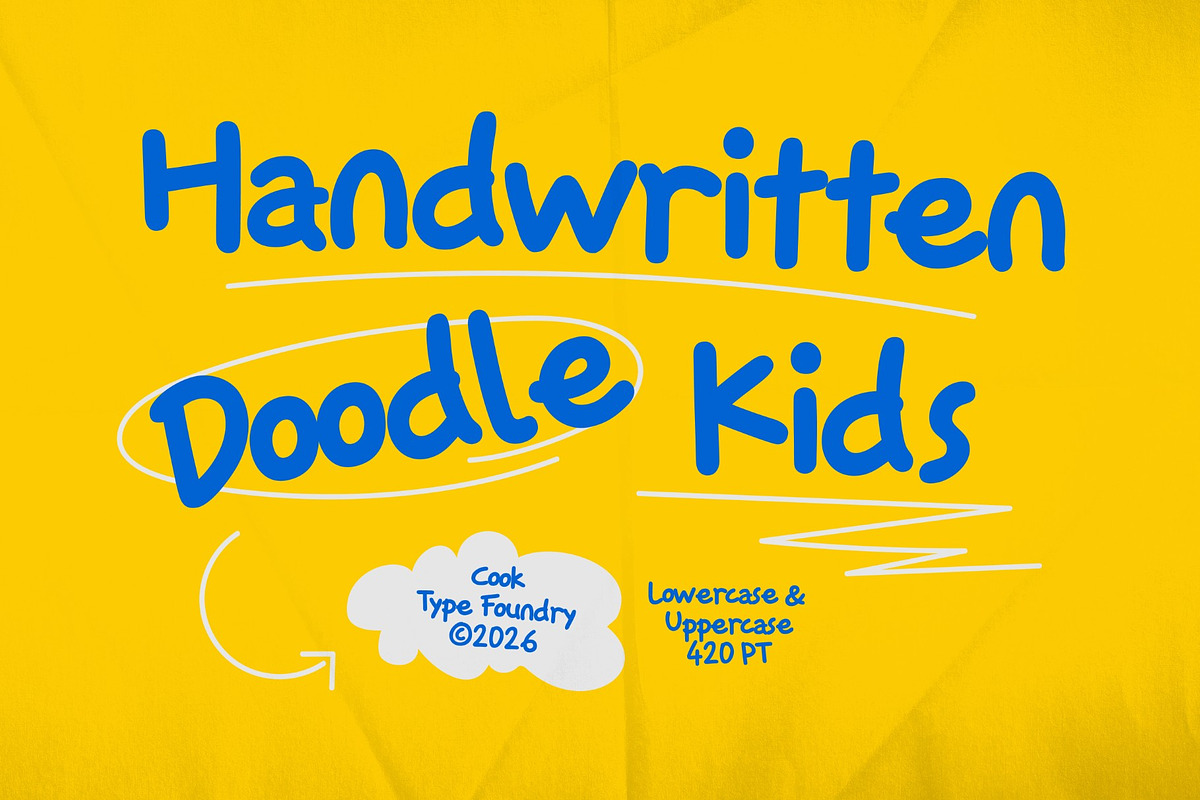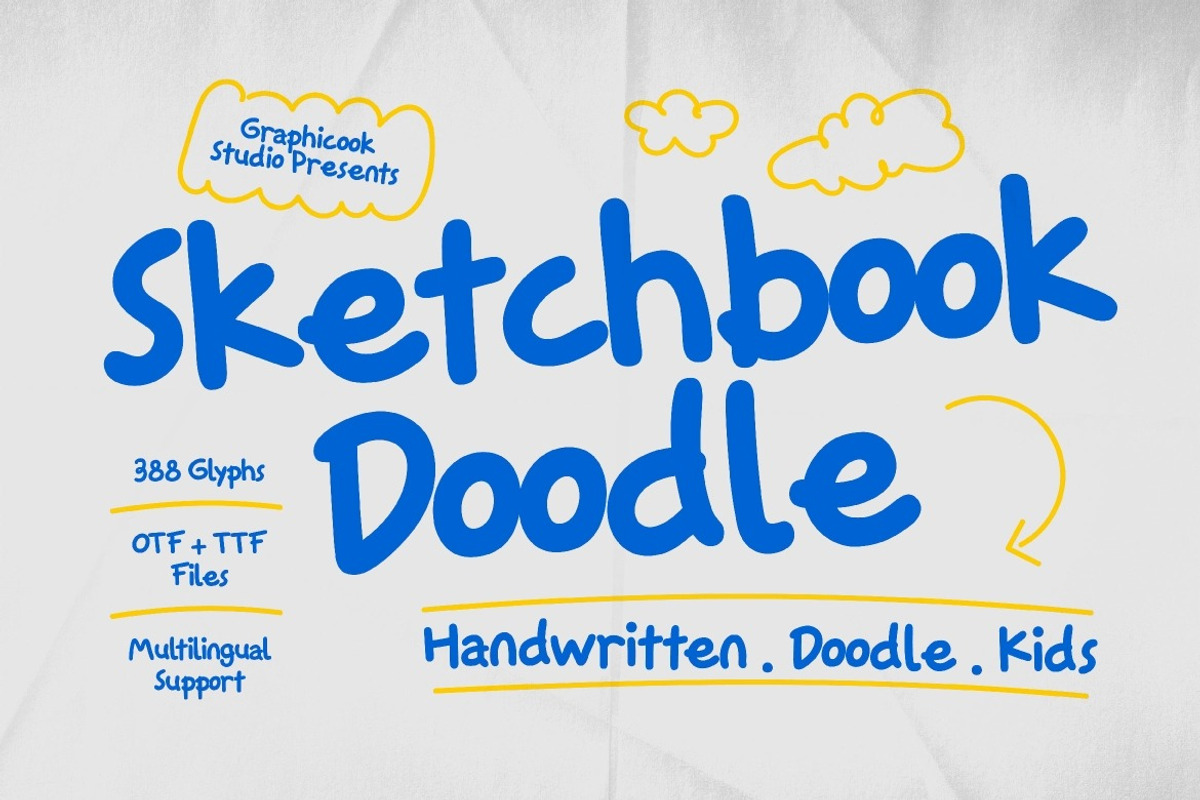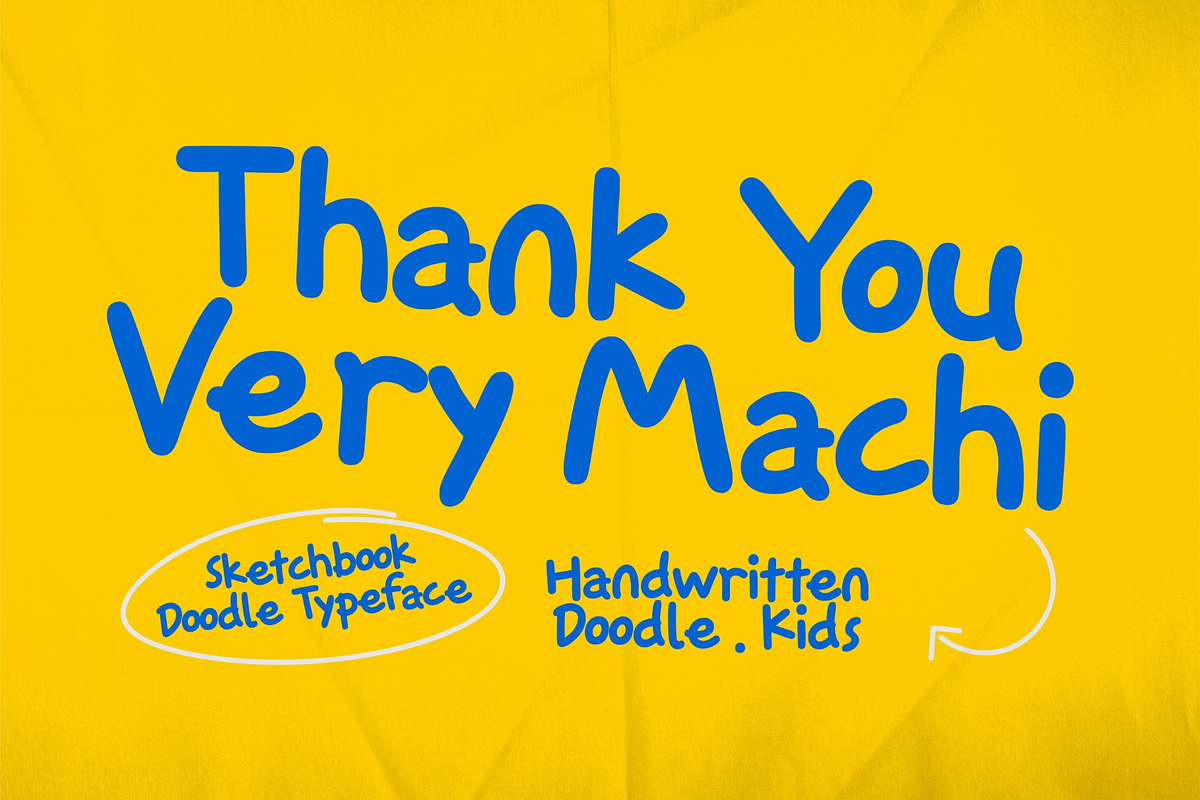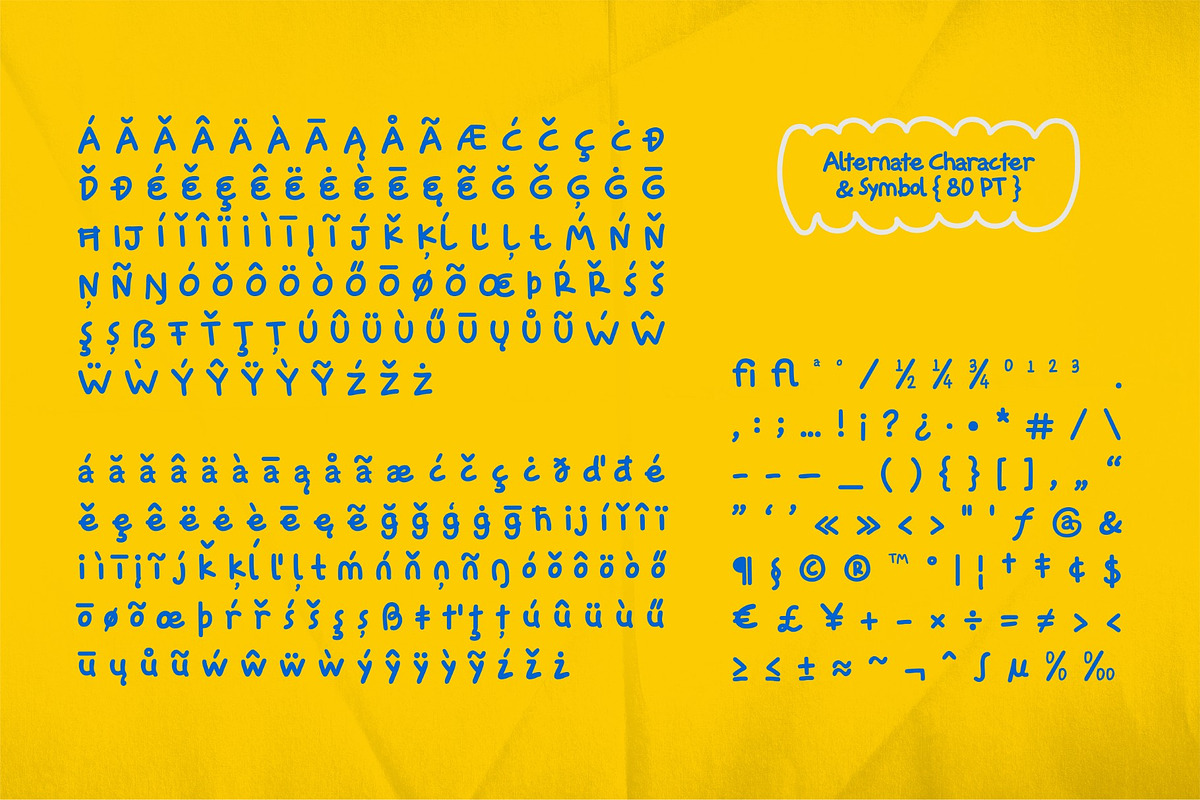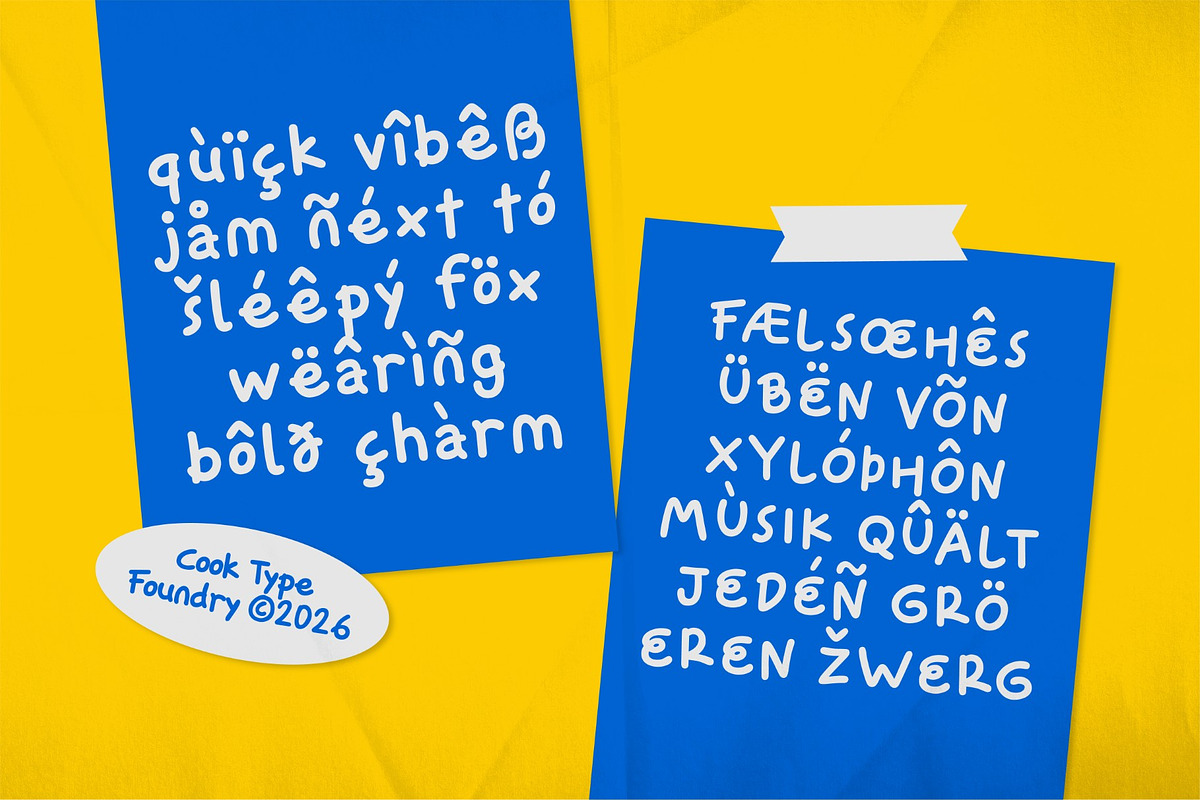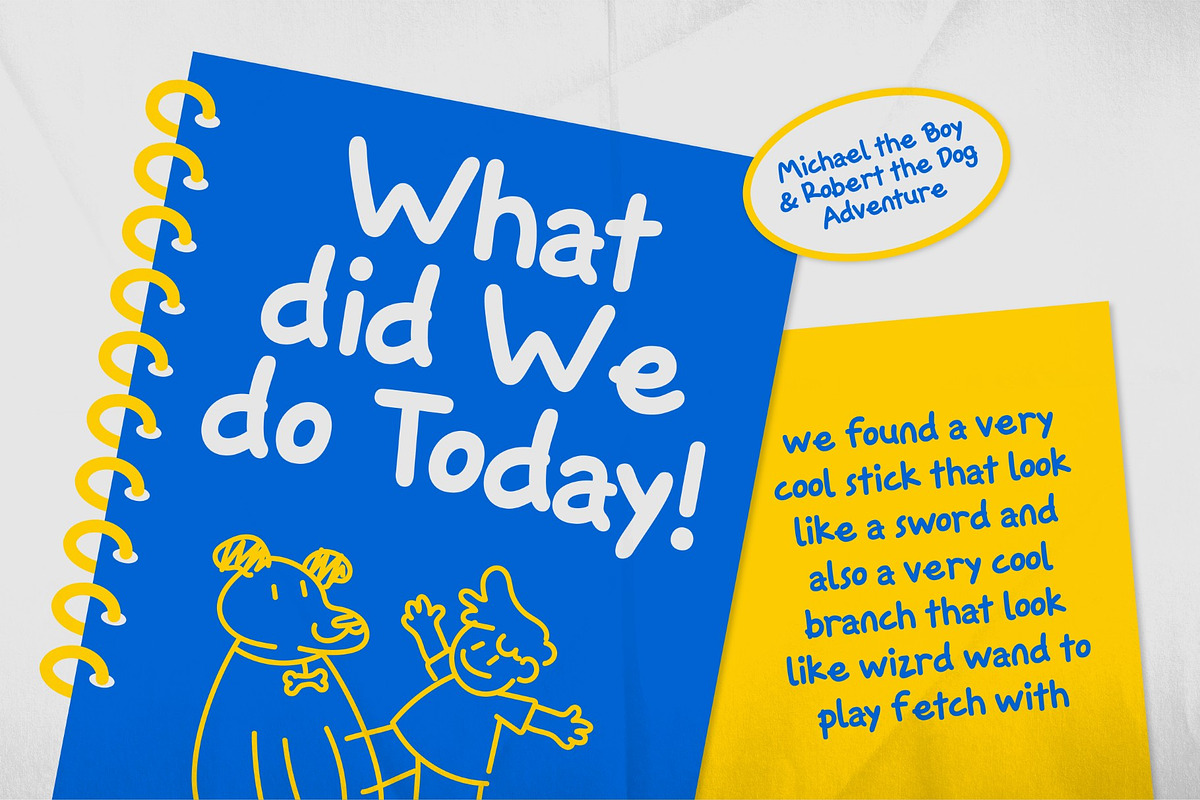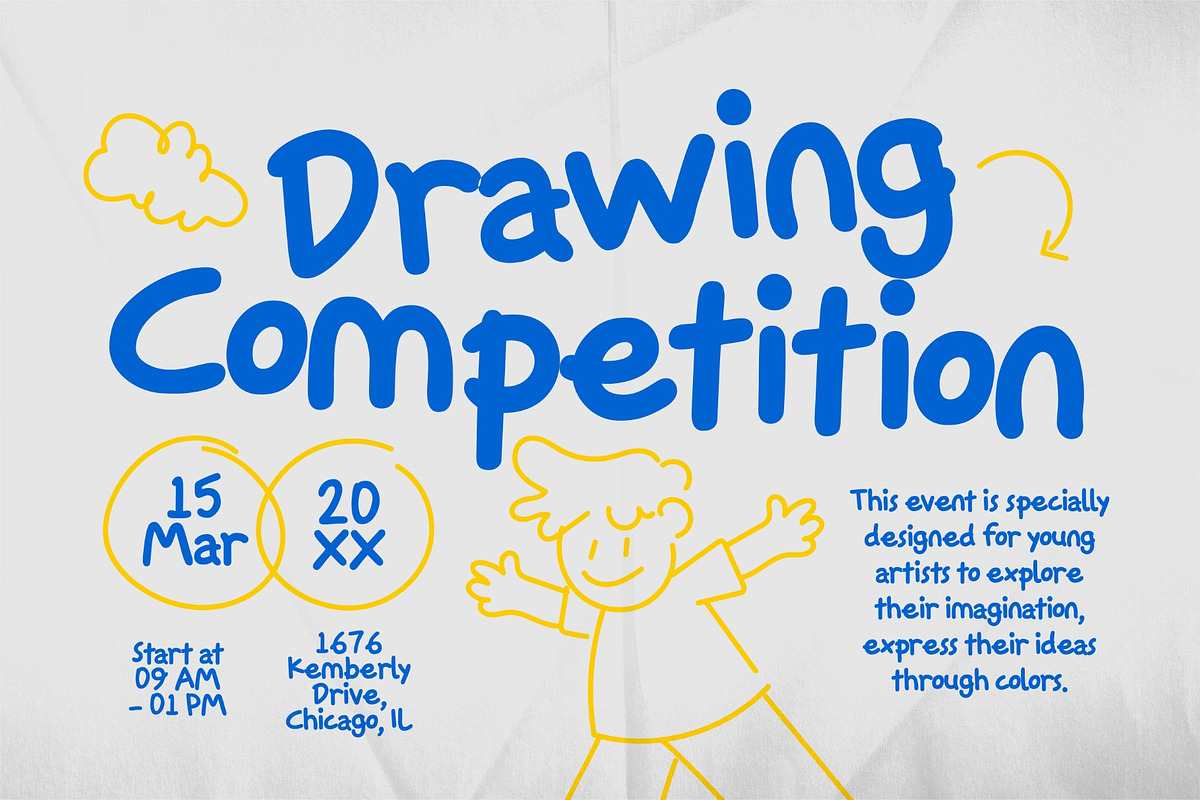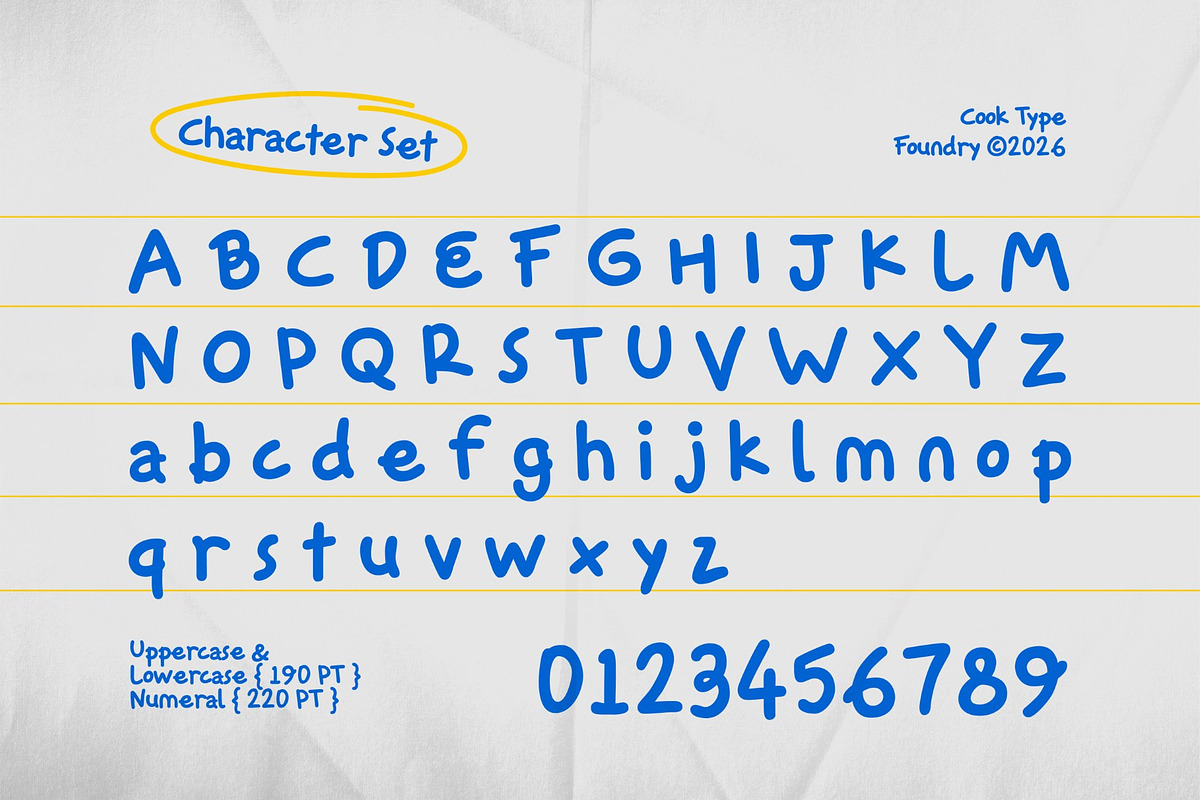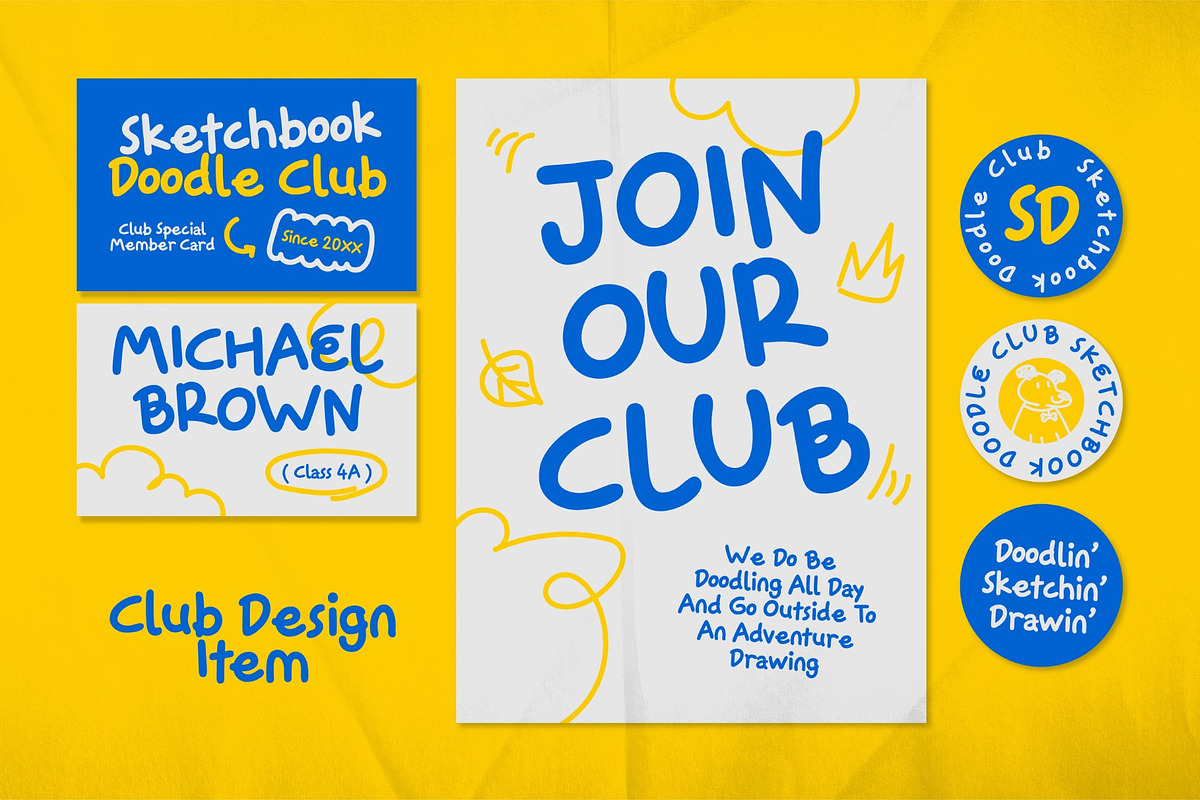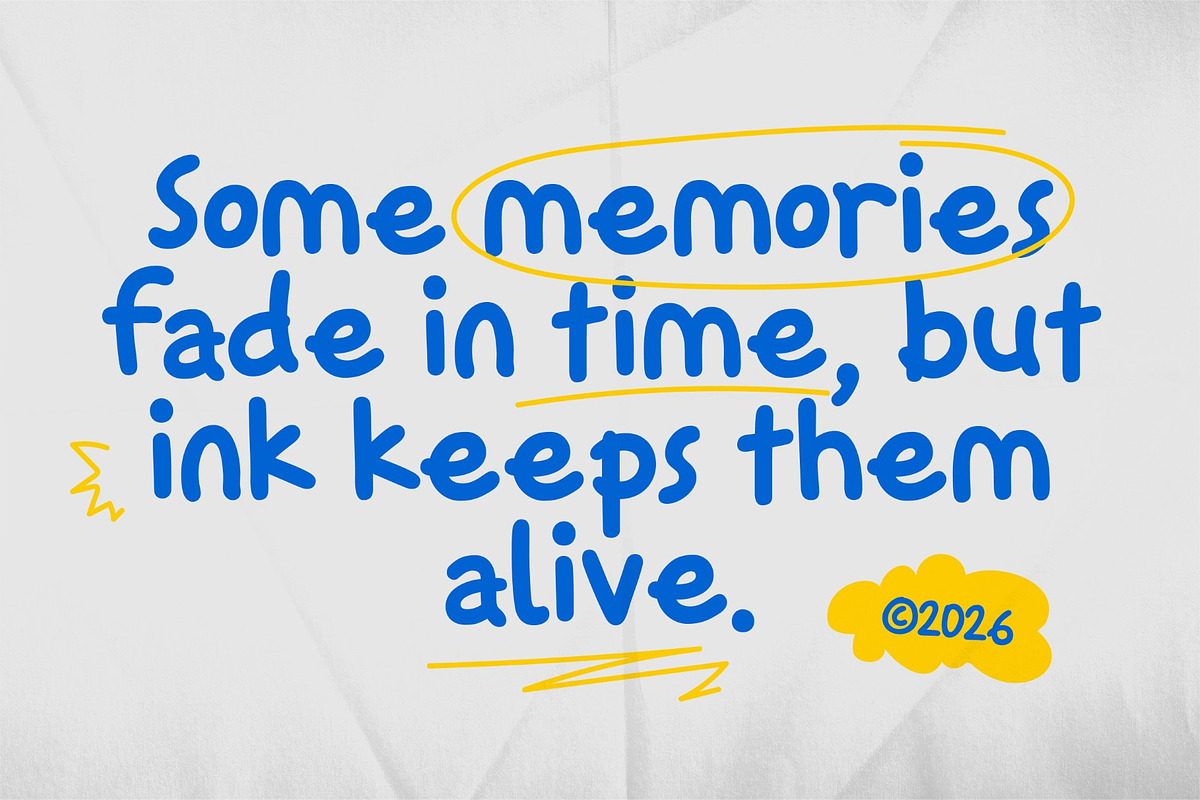
Sketchbook Doodle
Sketchbook Doodle is a handwritten, doodle-style font that celebrates creativity, playfulness, and spontaneity. Its rounded, relaxed letterforms create a cheerful and friendly tone, making it perfect for children’s designs, illustrations, school projects, and casual creative visuals that need a fun and imaginative feel.
It is perfect for headlines, logotypes, magazines, packaging, quotes, movies, games, cover albums, book covers, and flyers, it's a perfect solution for creating eye-catching designs that stand out in any context.